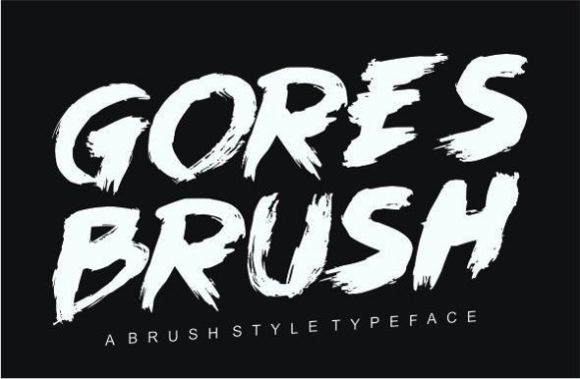
Introducing Goresbrush Font: Unleash Your Inner Boldness and Make Your Creations Shine!
Font Type: Display | Keywords: Unique, Daring, Eye-catching
Step into the world of Goresbrush, a daring and distinct display font that will ignite your creative spirit and make your projects radiate with individuality. Crafted by the skilled artisans at Niznaz Graphic Studio, Goresbrush is designed to take your designs to new heights of boldness, helping you stand out from the crowd.
As a display font, Goresbrush exudes strength and charisma, demanding attention with its powerful presence. Its sharp edges and dynamic curves create a visual impact that leaves a lasting impression. Whether you're designing captivating logos, eye-catching posters, or stunning social media graphics, Goresbrush is your ultimate weapon to make a statement.
Dive into the realm of endless possibilities with Goresbrush. Its versatility knows no bounds, making it the perfect font for a wide array of creative endeavors. Unleash your imagination and let Goresbrush transform your projects into masterpieces that resonate with your audience.
With Goresbrush by your side, you'll discover a world of creative freedom like never before. Its bold presence will command attention, while its unique style will leave a lasting impact. Embrace the power of Goresbrush today and witness the transformation it brings to your designs.